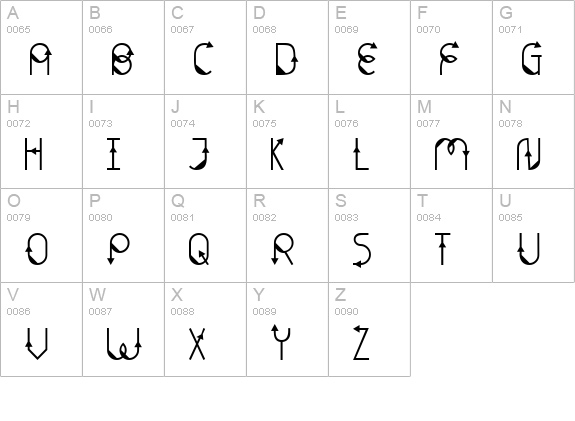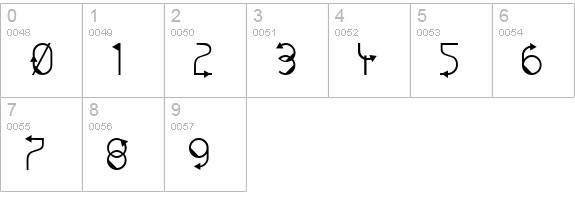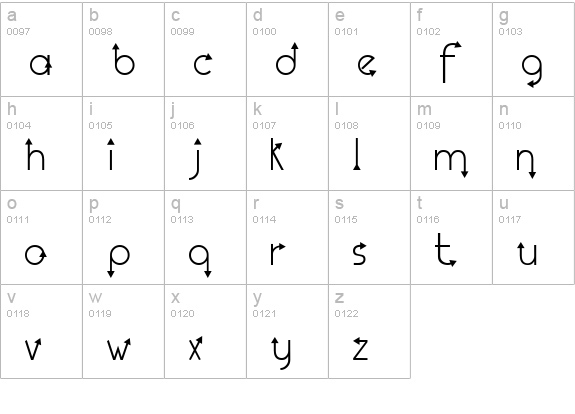
TM That Way Normal Font Details
TM That Way Normal is the standard, neutral variant in the TM typeface family \xE2\x80\x94 well suited to general body text, paragraphs, and standard typographic work.
Introducing TM That Way Normal font, a stunning typeface that effortlessly combines elegance with modern simplicity. This versatile font is perfect for any project, whether it's a logo, website design, or a creative document. TM That Way Normal font boasts clean lines and a balanced letterform that exudes a sense of professionalism and sophistication. Its timeless appeal makes it suitable for a wide range of applications, from corporate branding to editorial design. With its extensive character set, TM That Way Normal font offers a variety of options to express your creativity. Whether you're looking for a classic look or a more contemporary feel, this font has got you covered. It includes uppercase and lowercase letters, numerals, punctuation marks, and special characters, allowing you to create visually stunning and captivating designs. One of the best things about TM That Way Normal font is that it is freely available to download at FontsMarket.com. This means that you can easily access this incredible font without any hassle. Whether you're a professional designer or a hobbyist, this font is accessible to everyone, making it an excellent choice for any project. So, if you're in search of a versatile and visually appealing font that will elevate your designs, look no further than TM That Way Normal font. With its timeless elegance and freely available download, this font is your key to creating stunning and impactful designs that will leave a lasting impression.